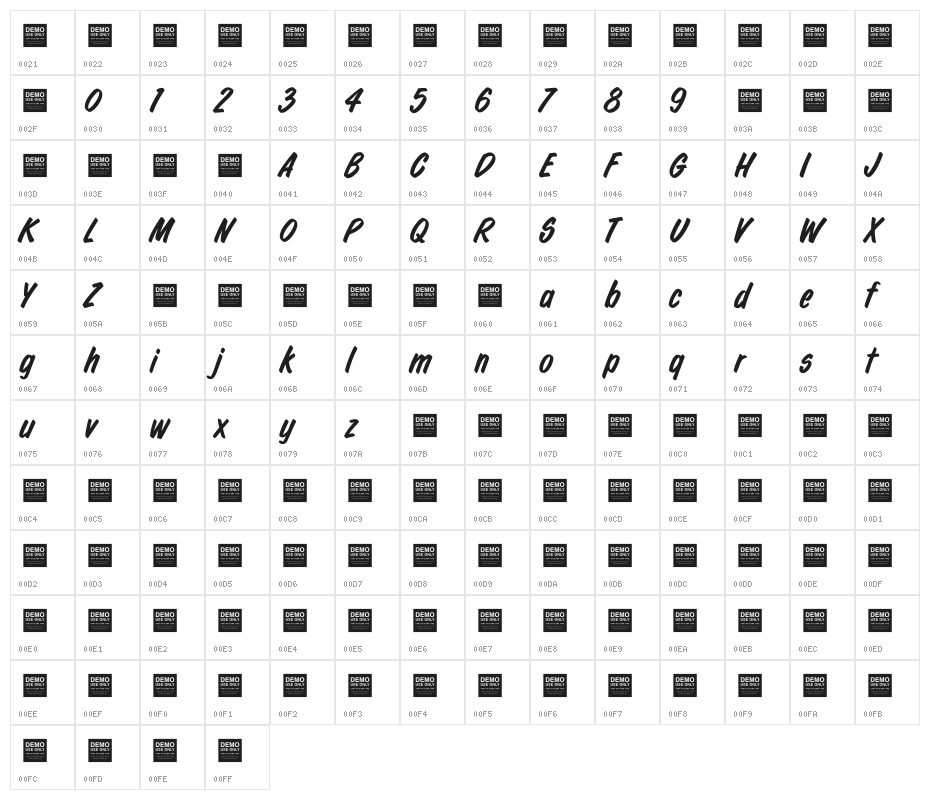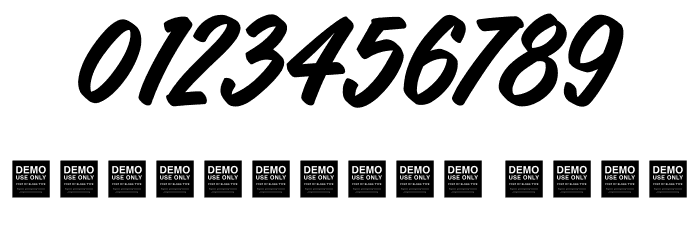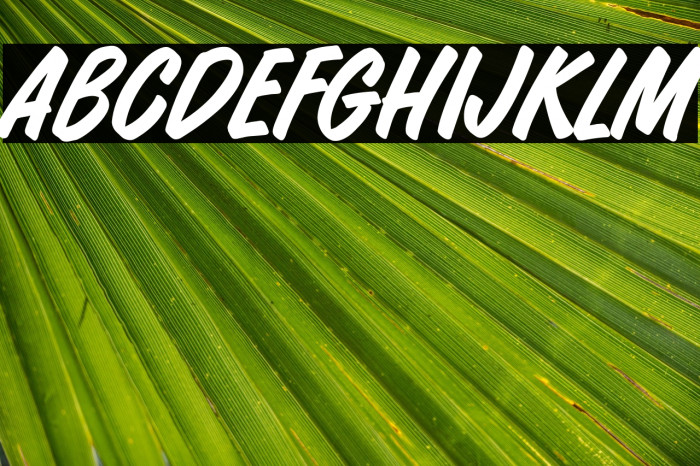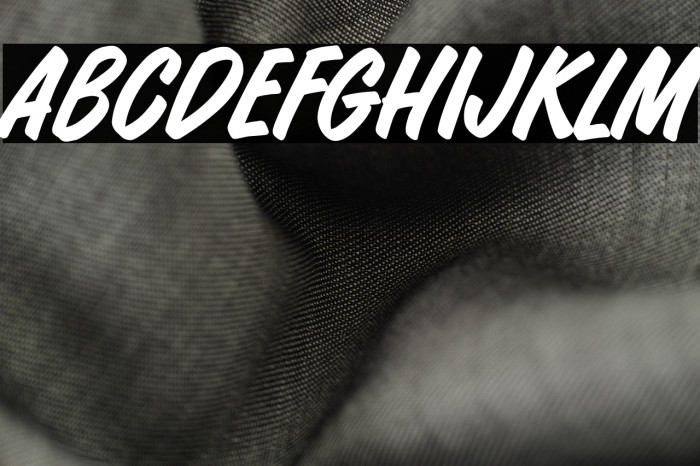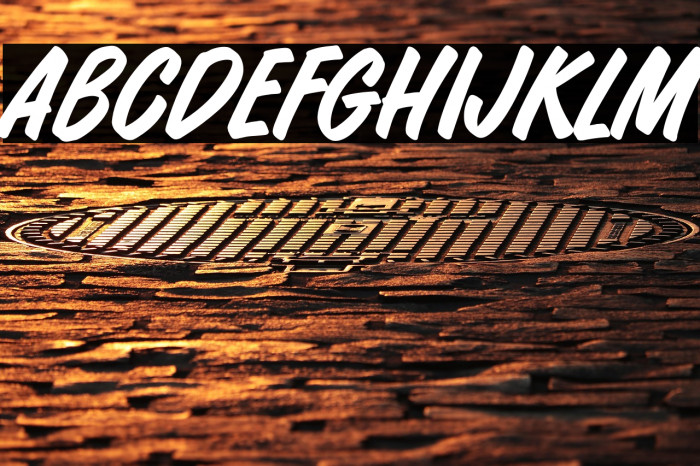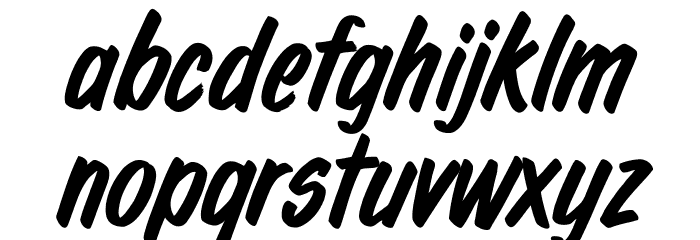
Hot Rod Font
Hot Rod Description
This font features a bold, energetic script style with a dynamic and flowing appearance. The letters are slightly slanted, giving a sense of motion and speed, reminiscent of hand-painted signs or vintage racing graphics. The strokes are thick and consistent, providing a strong visual impact. The uppercase and lowercase letters maintain a cohesive style, with rounded edges and smooth curves that enhance readability. Numbers and special characters follow the same stylistic approach, ensuring uniformity across all elements.
| Proposed Projects | Ideal for automotive branding, vintage posters, sports team logos, and dynamic advertising campaigns. |